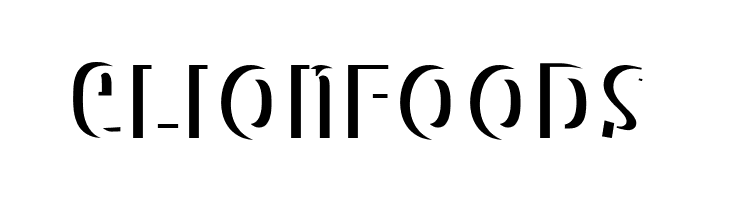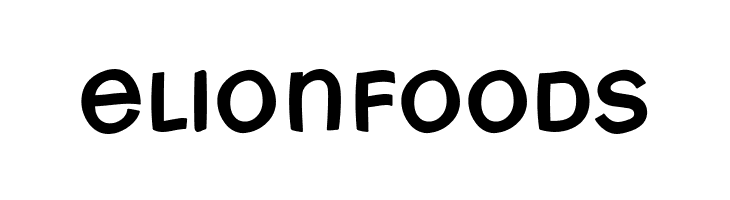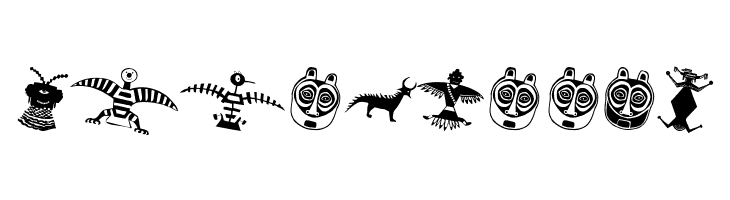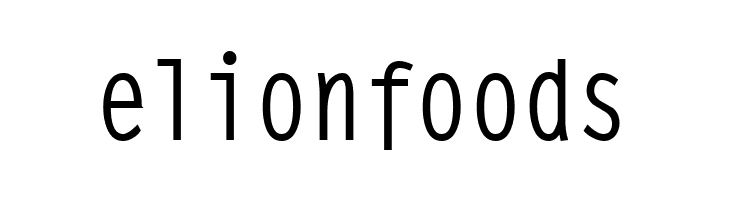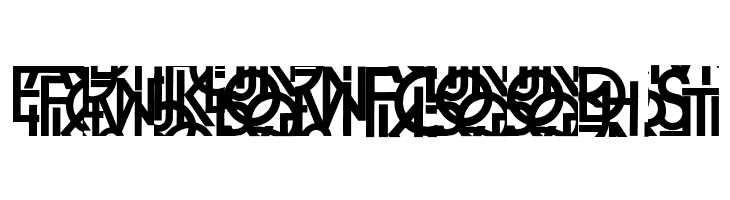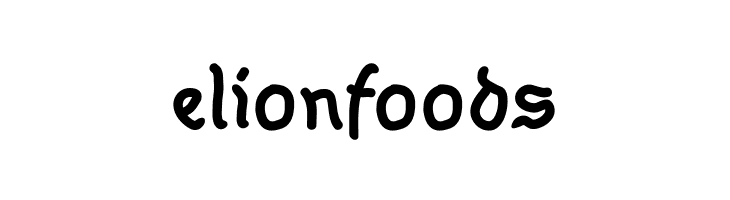
A whimsical serif font with decorative arrow-like embellishments.
A bold, shadowed font with sharp, angular edges and a geometric style.
A playful font with running legs attached to each character, perfect for energetic designs.
A dynamic, calligraphic font with bold, angular strokes and artistic flair.
A playful, bold font with rounded edges and a hand-drawn feel.
A decorative font featuring intricate tribal-inspired symbols and figures.
A highly stylized, abstract font with sharp, angular lines and a chaotic aesthetic.
A monospaced typewriter-style font with a modern twist.
A decorative and complex font with interlocking letterforms, ideal for artistic projects.